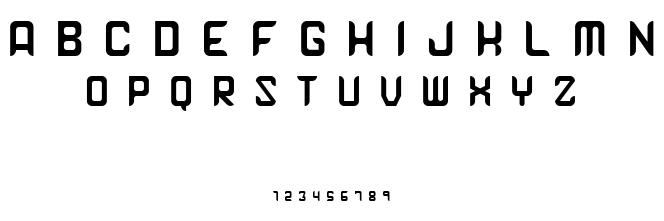
Arxel is a free San Serif display typeface that is based on a futuristic/modern look. It has contrast of shapes between the very straight edges and the curved edges. Arxel can be used for a wide variety of works and displays.